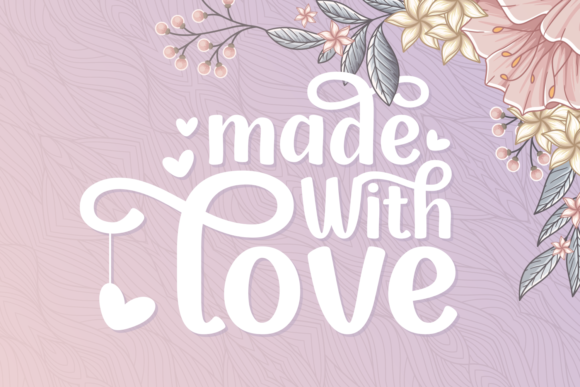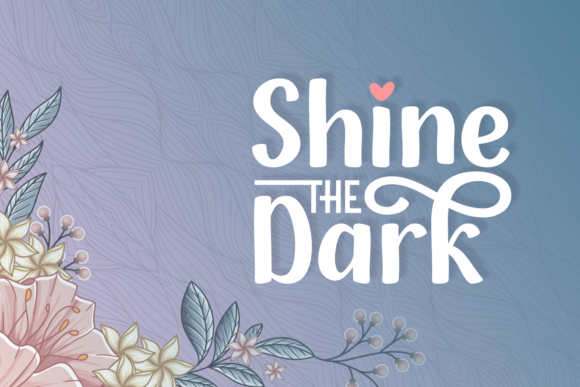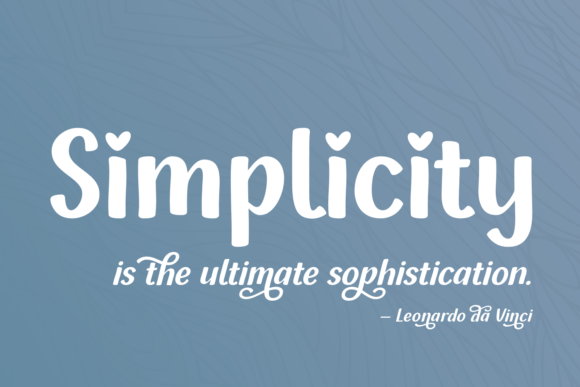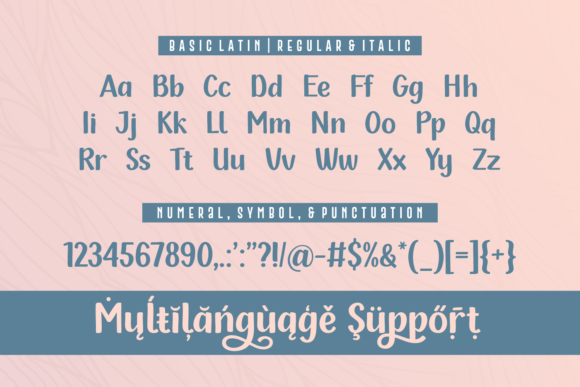
Introduction to Heyla Font
Have you ever been in the midst of a creative project, pouring your heart and soul into every detail, only to realize that the perfect font is missing? It’s that frustrating feeling when the entire design falls flat, and all you need is the right typography to bring it to life. This is where the Heyla Font comes in – a charming script font that adds a touch of magic to any design project.
With its playful characters and elegant flair, the Heyla Font is a valuable resource for designers looking to elevate their creative projects. Whether you’re working on a logo, a brochure, or a website, this high-quality font is sure to make a statement. Plus, with its transparent background, you can easily customize it to fit your design needs. And the best part? It’s available for free download, making it an accessible design resource for designers of all levels.
Key Features of Heyla Font
- Transparent Background: The Heyla Font features a transparent background, allowing for seamless integration into various design projects.
- High-Quality Design Resource: This font is a high-quality design resource suitable for creative projects that require a unique and modern touch.
- Unique Characteristics: The Heyla Font features a distinctive and elegant design, making it perfect for creative projects that require a touch of sophistication.
Honest Review: Heyla Font
As a designer, I’m always on the lookout for high-quality design resources to elevate my creative projects. The Heyla Font is one such resource that caught my attention, and I’m excited to share my honest review.
What works well: ✨ The Heyla Font has a modern and sleek design that is perfect for contemporary projects. It’s available for free download, which is a big plus in my book. The font is also highly customizable, making it a great choice for designers who like to experiment with different styles.
- Modern and sleek aesthetic
- Customizable
However, I do have some reservations about the Heyla Font: ⚠️ The font’s transparent background can sometimes make it difficult to read, especially when used on busy or cluttered designs. Additionally, the font’s limitations in terms of font weight and style options might be a drawback for some designers.
Overall, I think the Heyla Font is a great addition to any designer’s toolkit, but it’s not without its limitations. If you’re looking for a high-quality, modern font for your creative projects, the Heyla Font is definitely worth considering.
Tips for Getting the Most Out of the Heyla Font
To get the most out of the Heyla Font, be sure to experiment with different font sizes, colors, and styles. You can also use the font in combination with other design elements, such as graphics and images, to create a unique and eye-catching design.
Common Use Cases for the Heyla Font
The Heyla Font is perfect for a variety of creative projects, including presentations, social media graphics, and print materials. It’s also great for use in digital products, such as e-books and online courses.